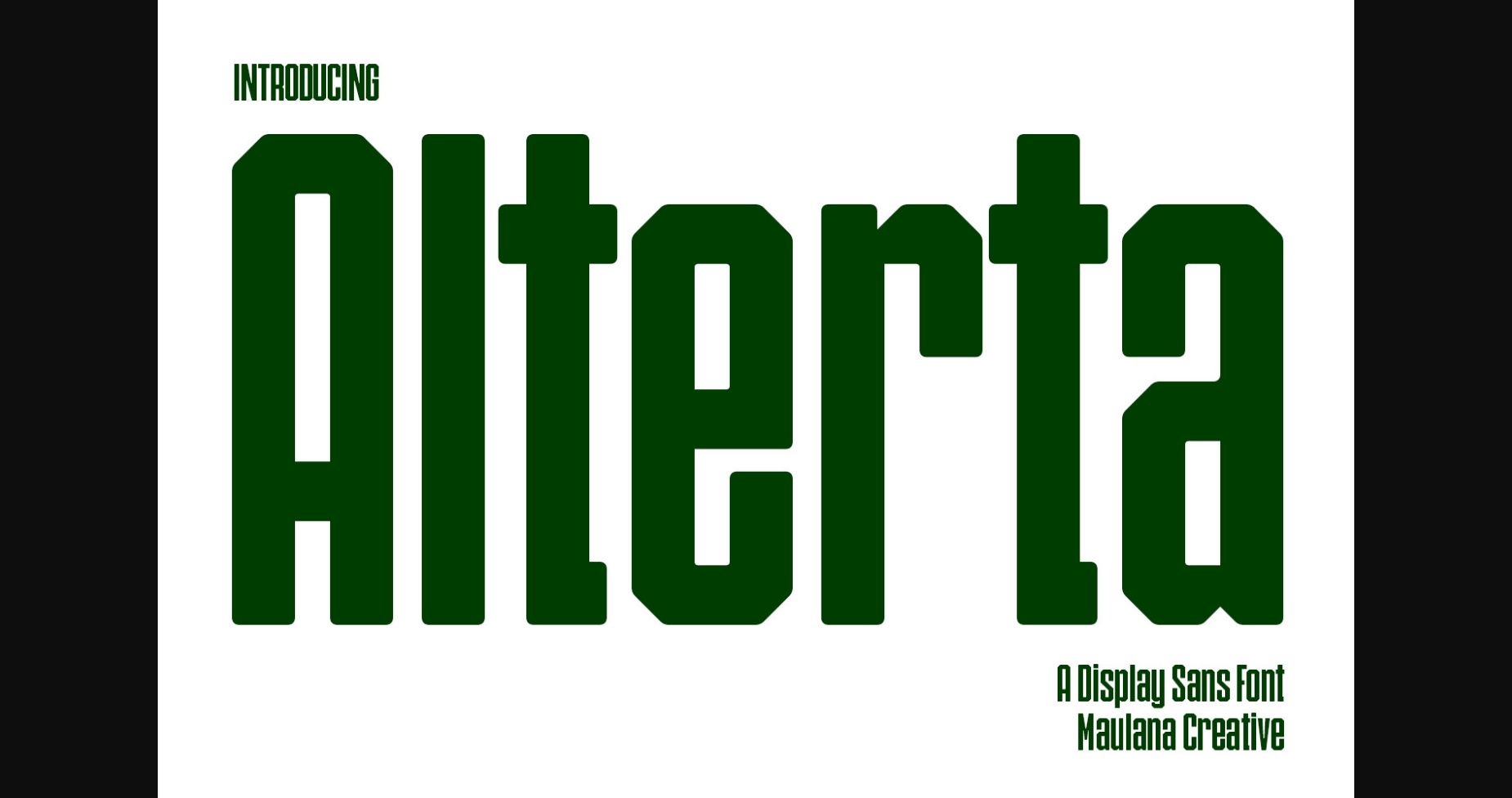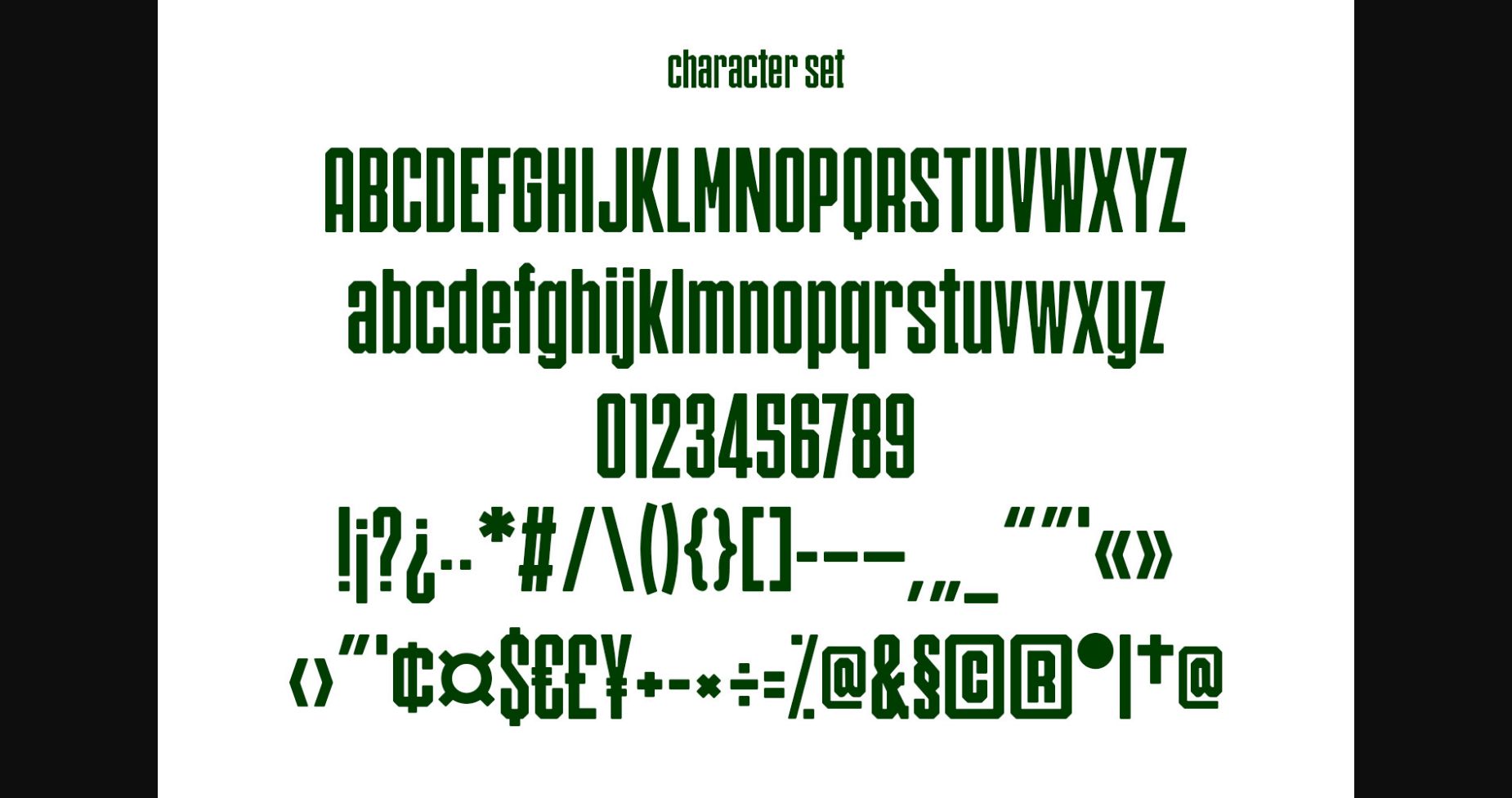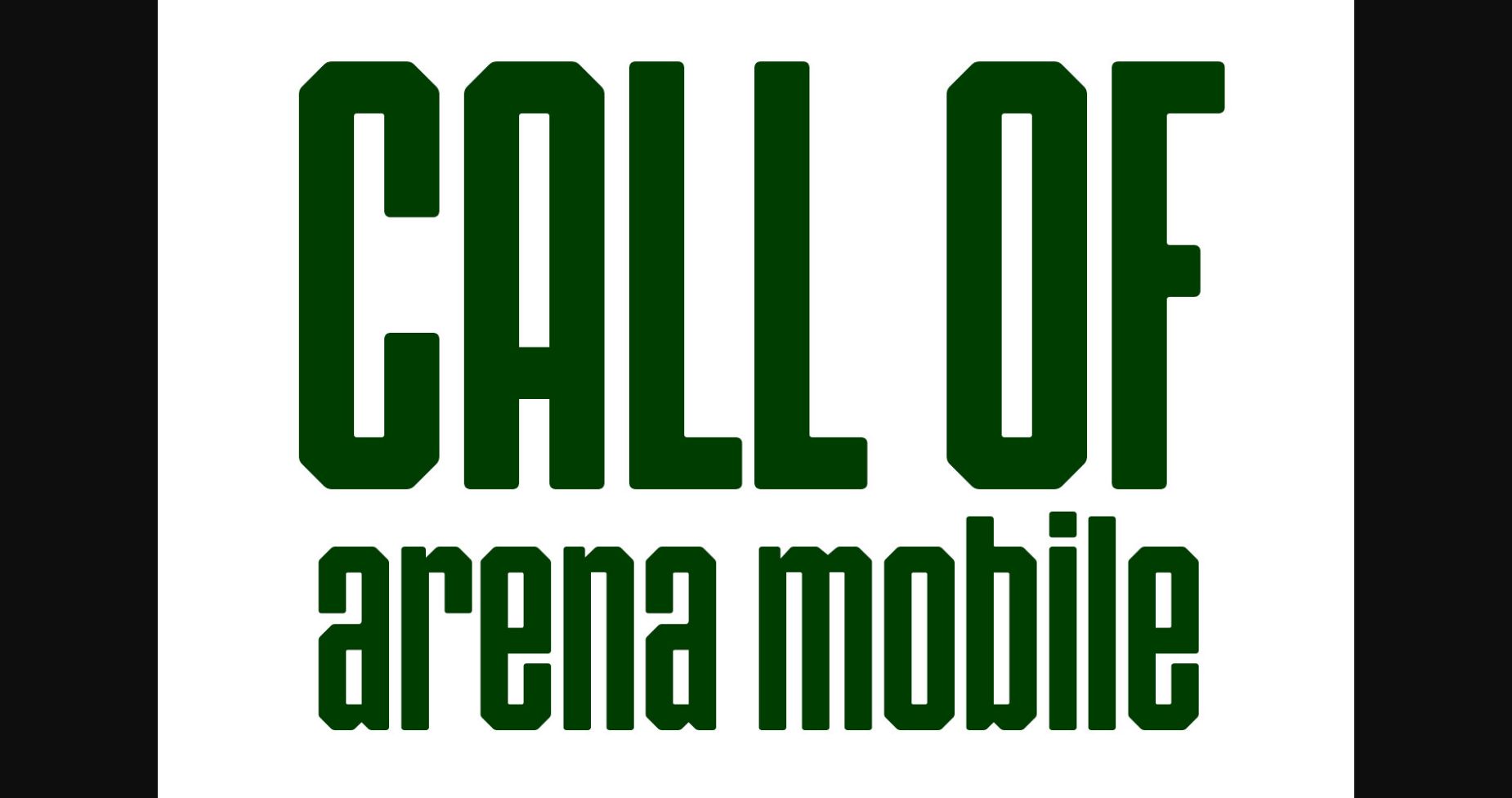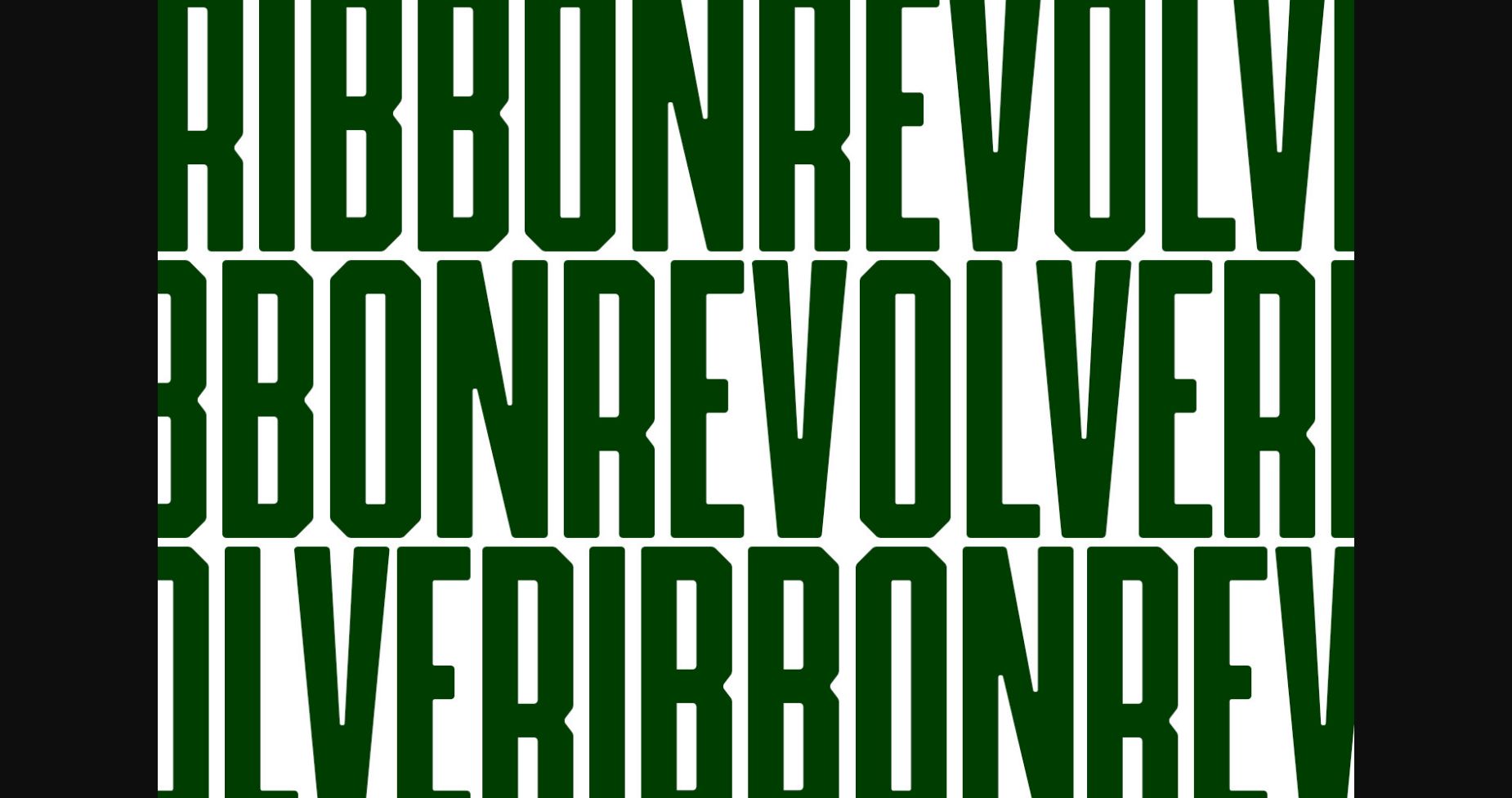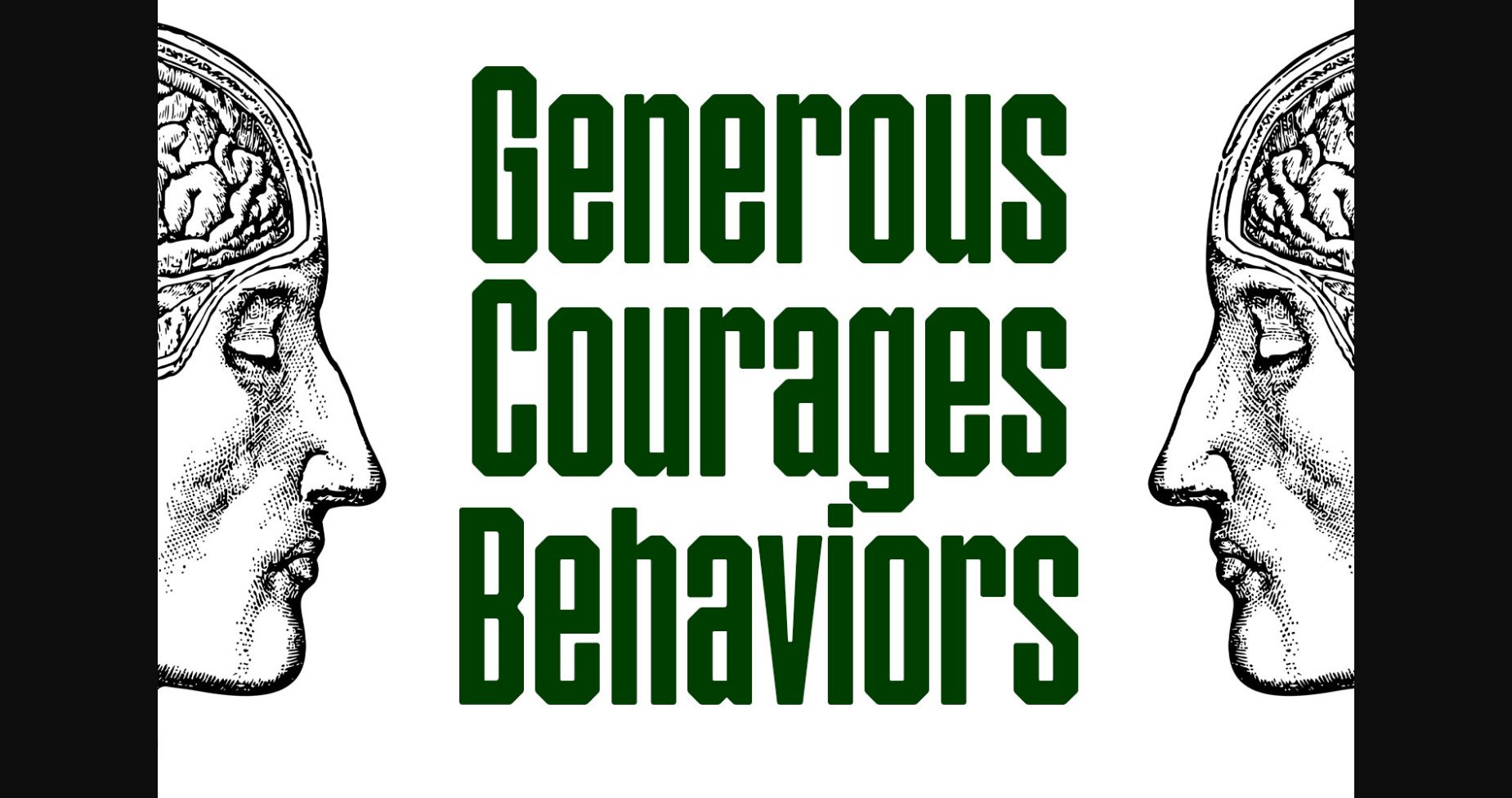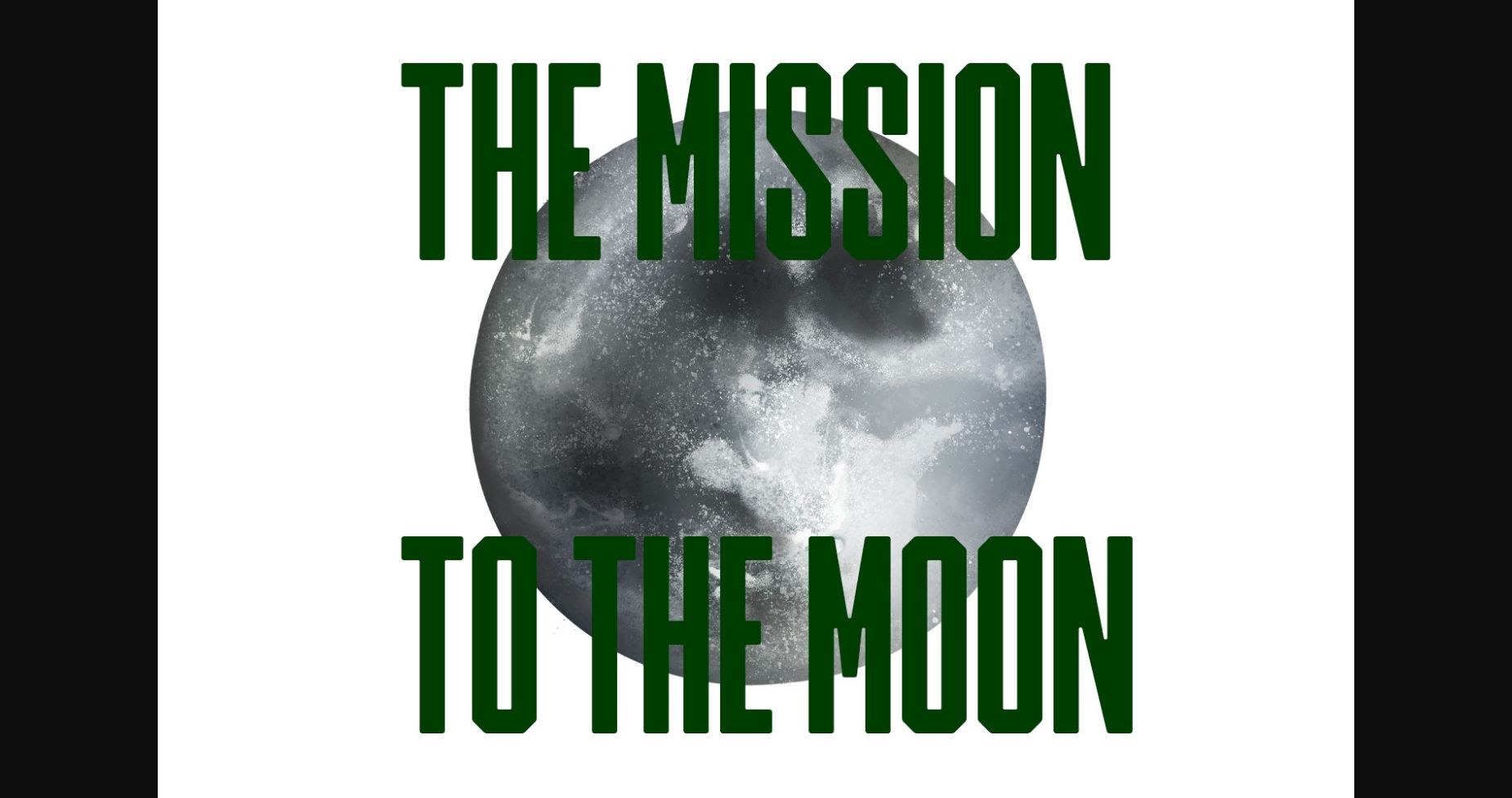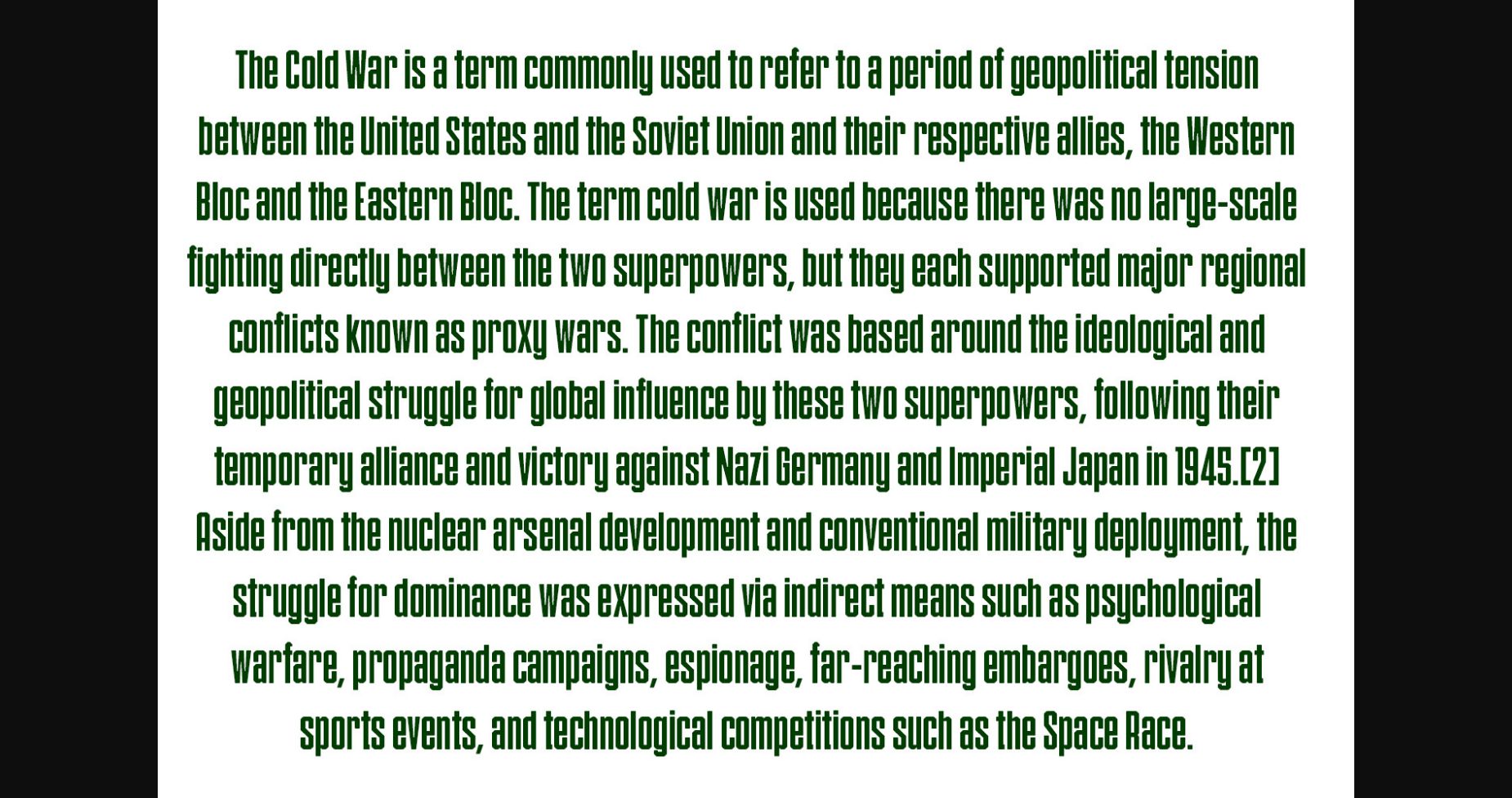
Alterta Font
About Alterta Font
Alterta is a modern and fun sans serif display font. Trendy and stylish, this font will elevate each of your creations.